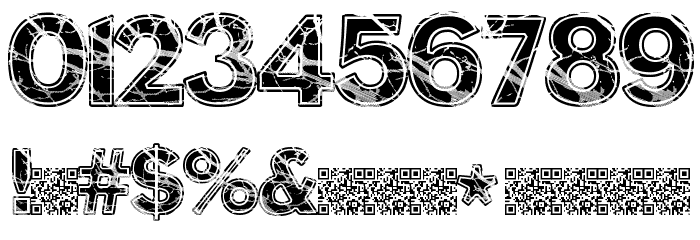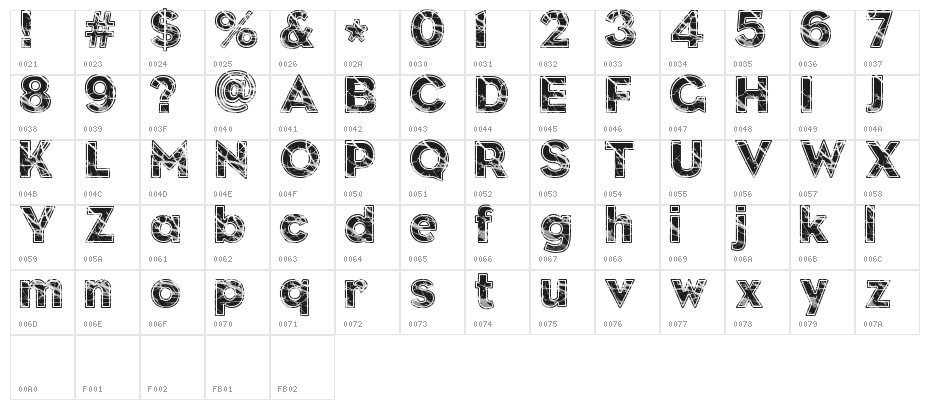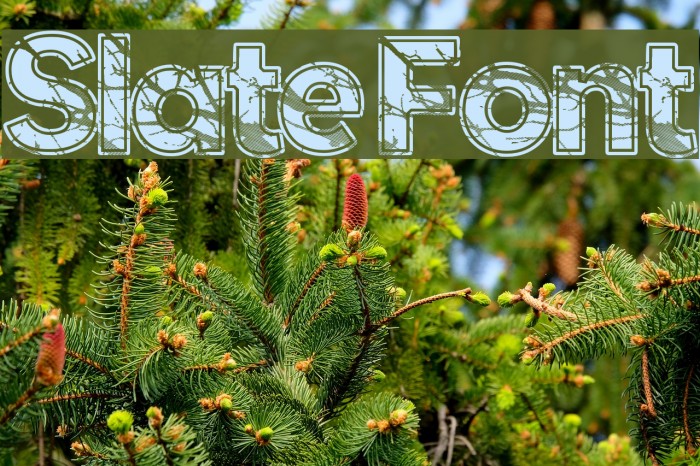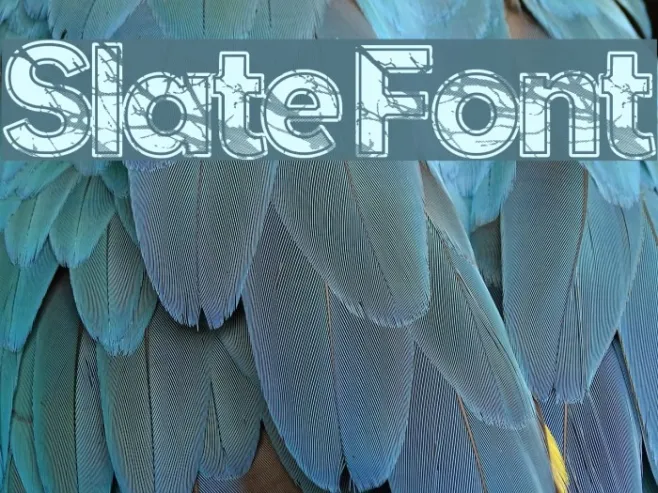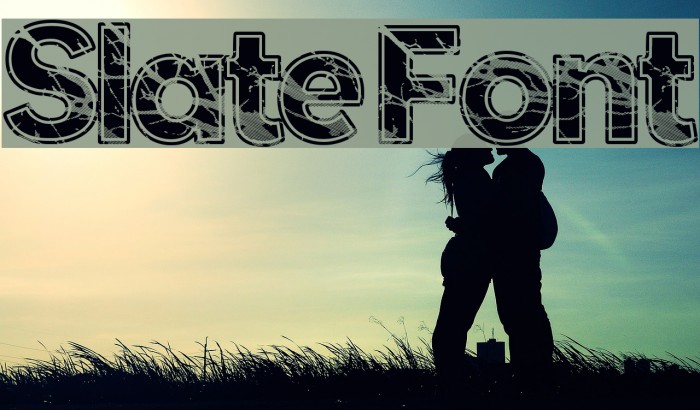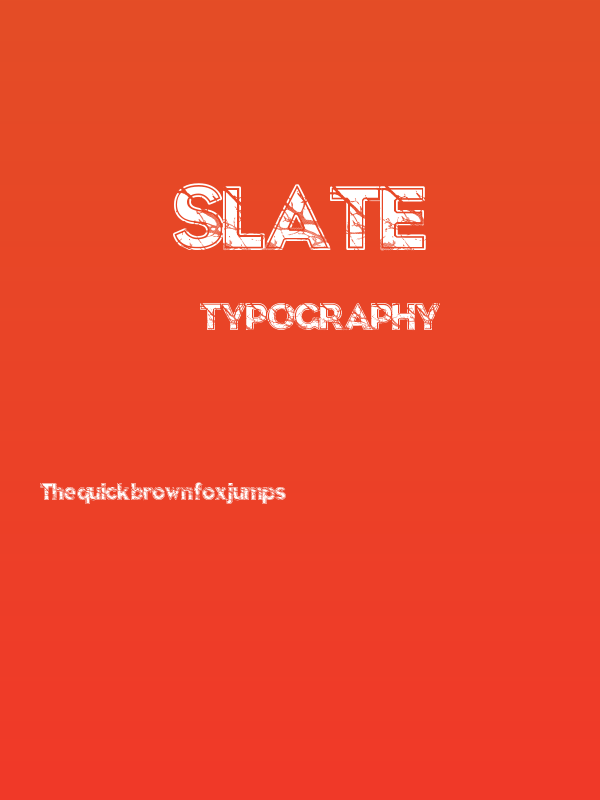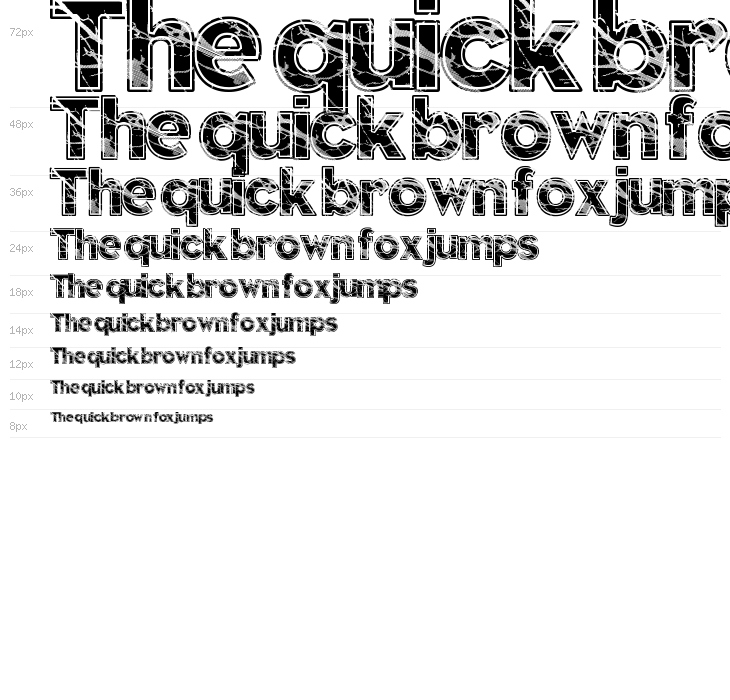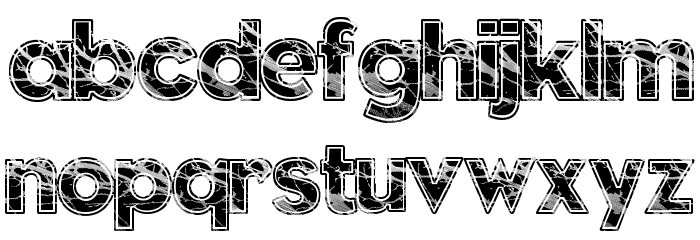
Slate Font
Slate Description
This font features a bold and dynamic design with a distressed, grunge texture overlay. The characters are uppercase and lowercase letters, numbers, and a variety of special symbols. Each character is outlined with a thick, solid border, giving it a strong presence. The interior of the characters is filled with a chaotic, scratched pattern that adds a rugged, edgy feel. This style is reminiscent of urban street art or distressed signage, making it ideal for projects that require a bold statement. The font maintains a consistent weight throughout, ensuring readability despite its decorative elements.
| Overall Style | Urban, Grunge, Edgy |
| Proposed Projects | Ideal for posters, album covers, urban-themed designs, and branding that requires a bold, edgy look. |